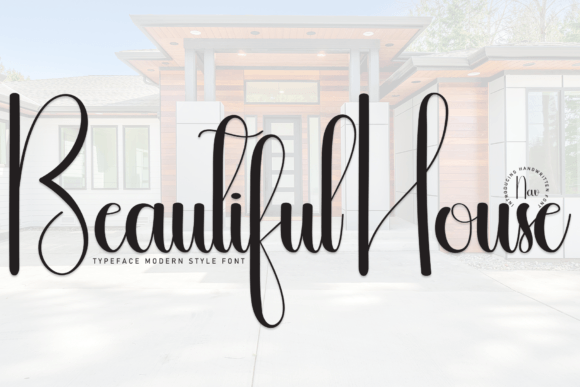
Introducing the Beautiful House Font - An Enchanting Script for Special Occasions
Immerse yourself in the world of elegance and charm with the Beautiful House Font, a captivating handwritten script designed to transform your digital creations into enchanting masterpieces. This font exudes a warm and inviting aura, making it the perfect choice for adding a personal touch to your wedding invitations, greeting cards, social media posts, and any other project that calls for a touch of heartfelt sincerity.
Step into a Realm of Timeless Elegance
With its graceful swirls and flowing lines, the Beautiful House Font embodies the essence of timeless elegance. Each character is carefully crafted to evoke a sense of sophistication and charm, inviting your audience to embark on a journey of heartfelt expression. Whether you're a professional designer, a creative hobbyist, or simply someone who appreciates the beauty of handwritten artistry, this font is sure to ignite your imagination and leave a lasting impression.
Unleash Your Inner Artist
The Beautiful House Font is a versatile tool that empowers you to unleash your inner artist and bring your creative visions to life. Its playful nature makes it ideal for adding a whimsical touch to invitations, cards, or social media posts. At the same time, its elegant charm lends itself perfectly to branding materials, logos, and other projects where a touch of sophistication is desired.
Indulge in the Beauty of Handwritten Charm
Embrace the allure of handwritten charm with the Beautiful House Font. This font captures the essence of heartfelt communication, making it the ideal choice for expressing your love, gratitude, or appreciation. Its sweet and friendly demeanor adds a personal touch to any project, inviting your audience to connect with your message on a deeper level.
Experience the Magic of the Beautiful House Font
With the Beautiful House Font, the possibilities are endless. Let your creativity soar as you explore the boundless potential of this enchanting script. Whether you're creating wedding invitations that radiate joy, designing cards that convey heartfelt sentiments, or crafting social media posts that capture the essence of your brand, the Beautiful House Font will elevate your designs to new heights of elegance and charm.